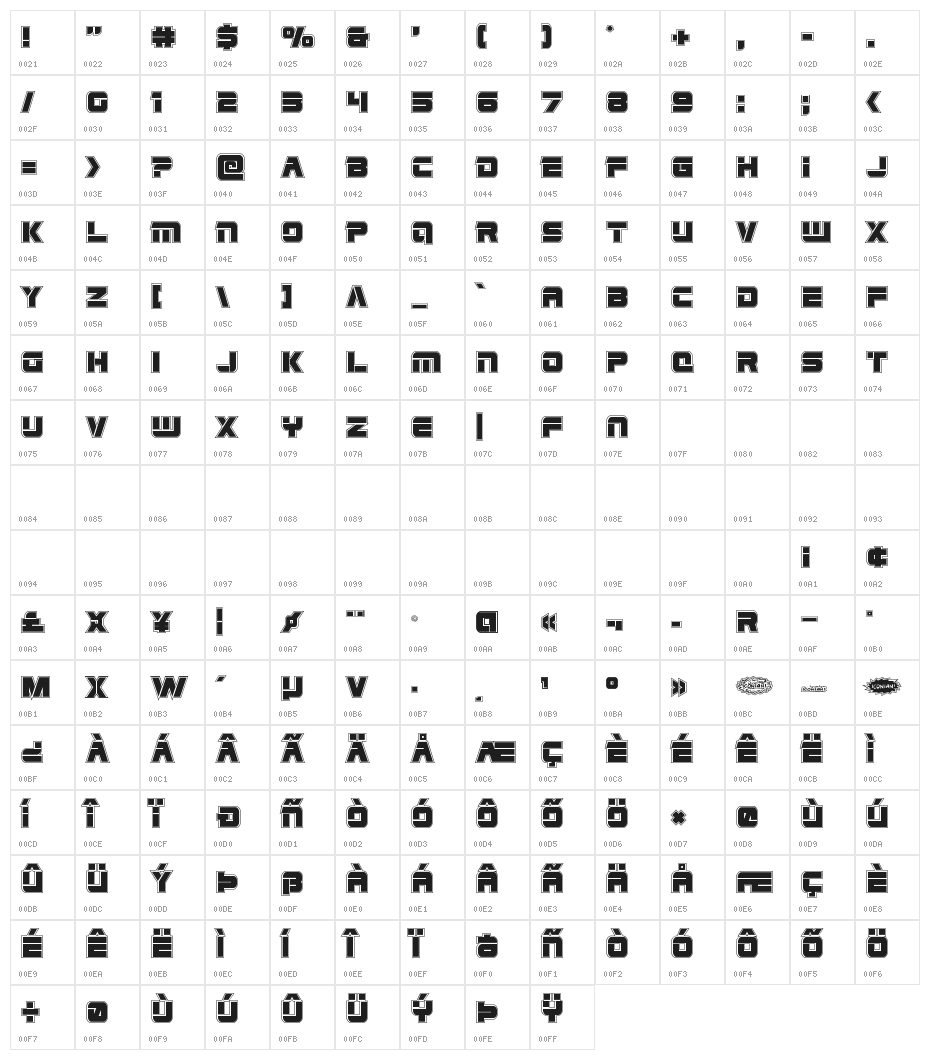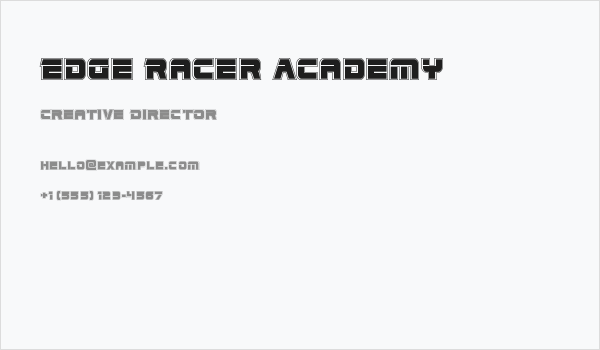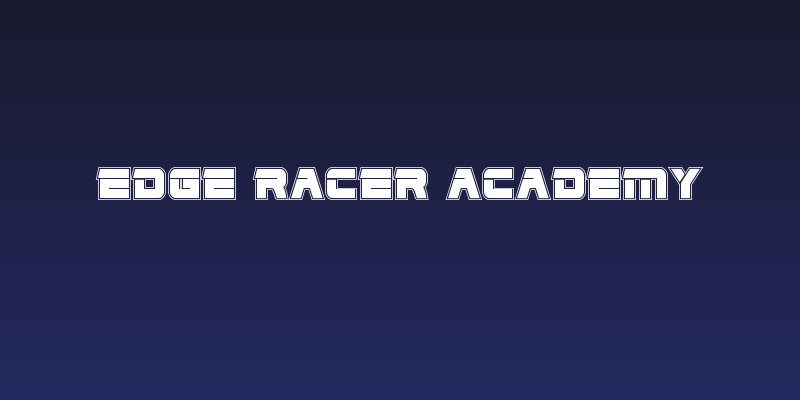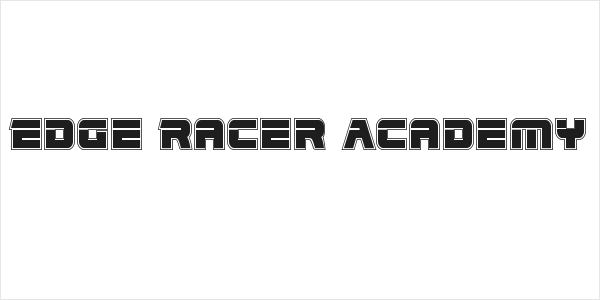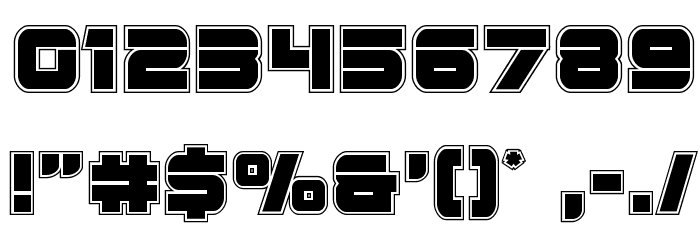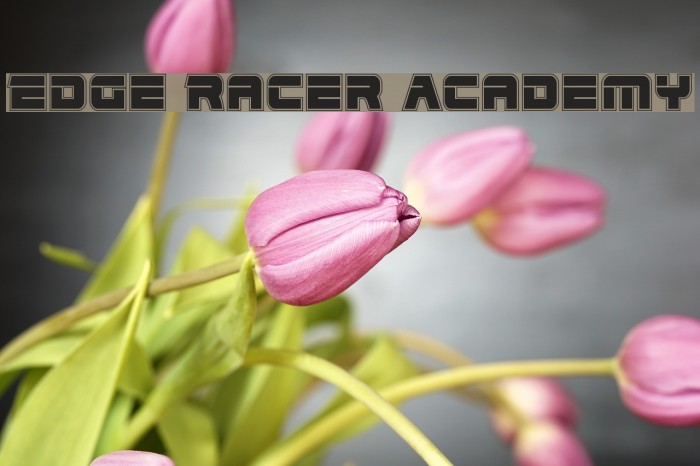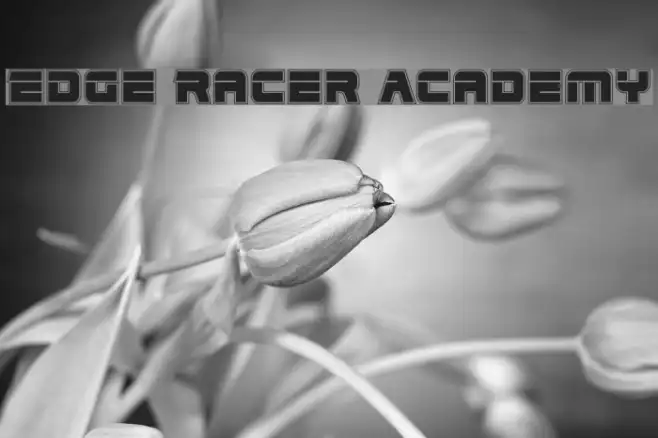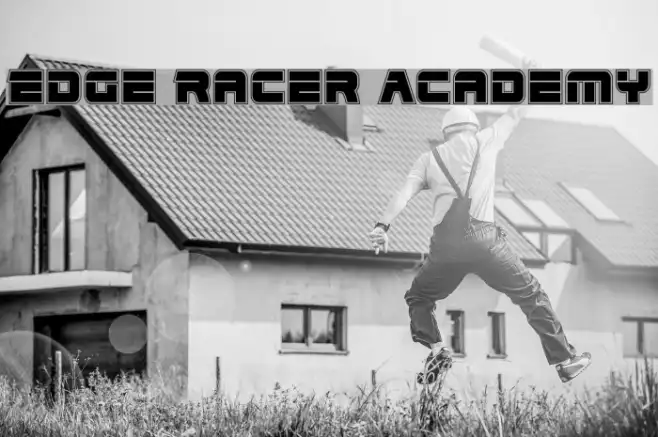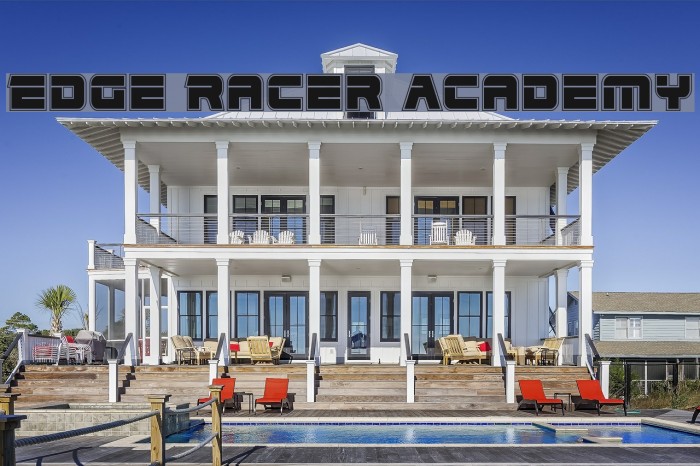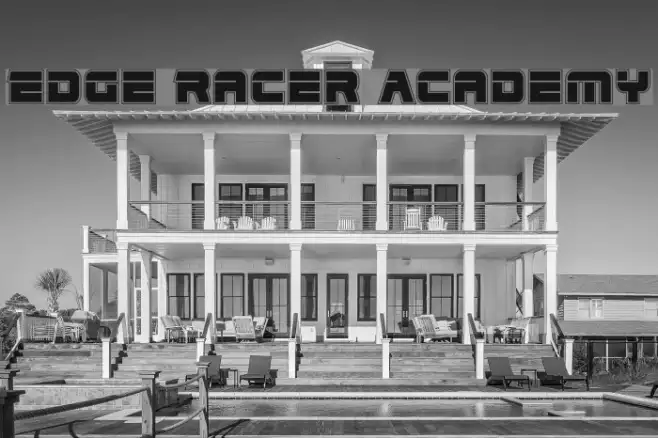
Edge Racer Academy Font
Edge Racer Academy Description
This font features a bold, futuristic design with a strong geometric structure. The characters are outlined with a thick border, giving them a three-dimensional effect. The angular and sharp edges contribute to a dynamic and modern appearance, reminiscent of technology and speed. The uniformity in the height of the characters ensures a cohesive look, while the distinct separation between the inner and outer lines adds depth. This font is ideal for projects that require a bold statement, such as branding for tech companies, sports teams, or automotive industries.
| Use Case | Logos, Headlines |
| Proposed Projects | Ideal for tech branding, sports team logos, automotive industry designs, and futuristic-themed projects. |